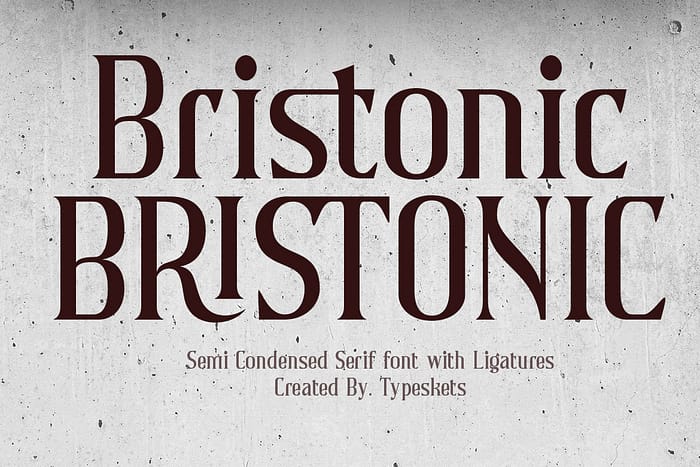
BRISTONIC
Bristonic is an elegant and incredibly authentic serif font. It has a vintage touch and an incredibly unique feel, so add it confidently and you will love the results.